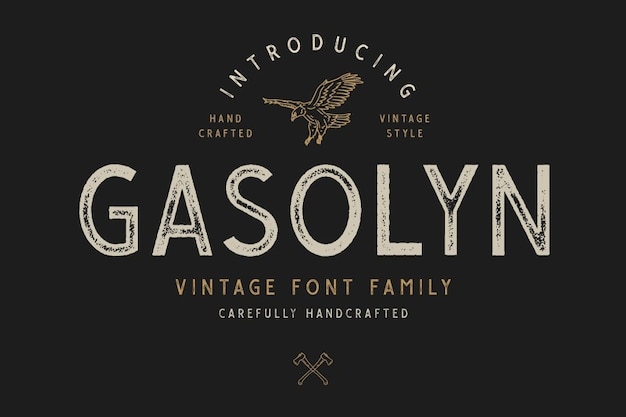
Gasolyn Font
Gasolyn font effortlessly bridges the gap between vintage charm and modern simplicity. It's a typographic time machine, turning your text into a blend of classic and contemporary. Ideal for projects seeking a touch of nostalgic simplicity. Gasolyn seamlessly marries vintage allure with modern minimalism, giving your words a timeless and straightforward expression that appeals to both past and present sensibilities.